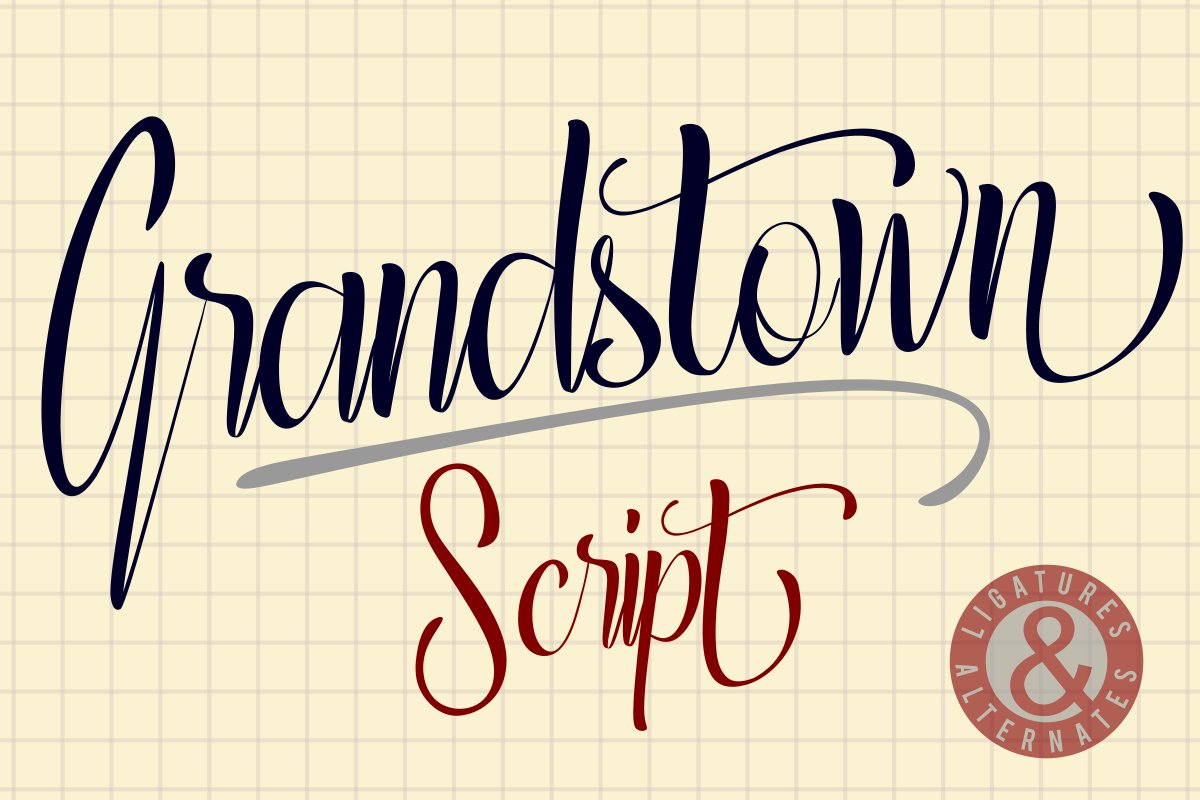
Grandstown Script
Introducing Grandstown Script - a rather quirky calligraphy font.
Suitable for posters, merchandises, greeting cards, social media, book titles, tshirts, name cards, invitations, and many more!
Support multilingual.
ligatures, alternates and swashes.